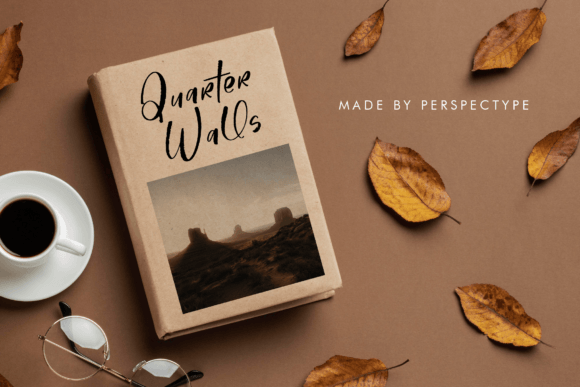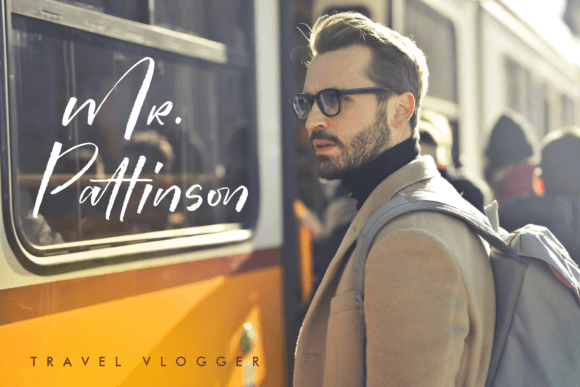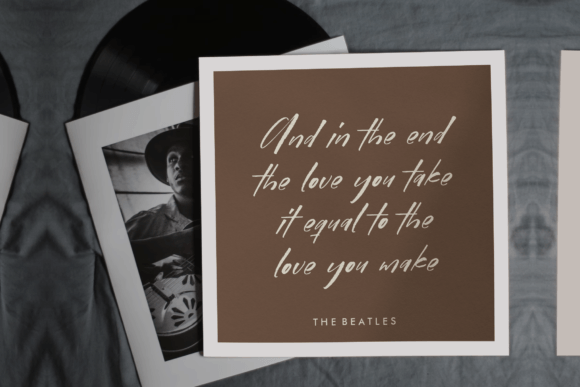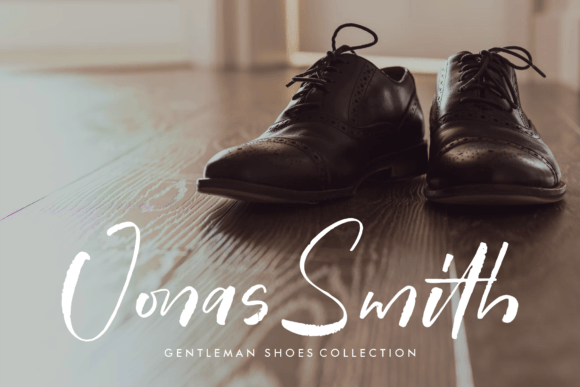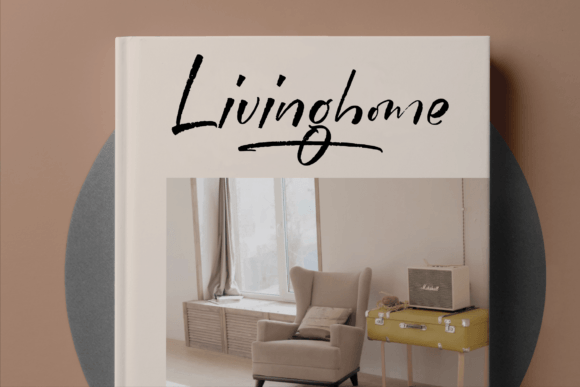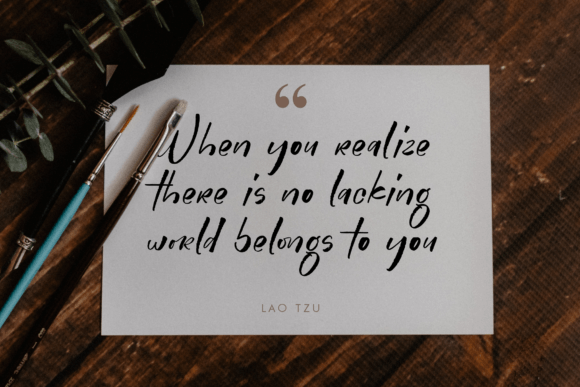
Introduction to Glamorat Font
Glamorat is a beautiful handwritten brush font.
This lovely typeface is suitable for any logos, branding projects, homeware designs, product packaging, mugs, quotes, posters, shopping bags, t-shirts, book covers, name cards, invitation cards, greeting cards, labels, photography, watermark, and special events .